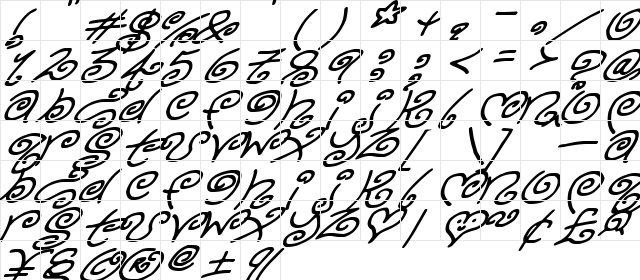
Kurly Kyoots Italic
Design Context for Kurly Kyoots Typeface
Kurly Kyoots is a composed and adaptable typeface that performs quietly and consistently across a wide range of design contexts. The slanted form adds forward momentum and visual energy.
Pro Tip: Use Kurly Kyoots for emphasis, pull quotes, and subheadings where its slanted energy can add rhythm to the layout.